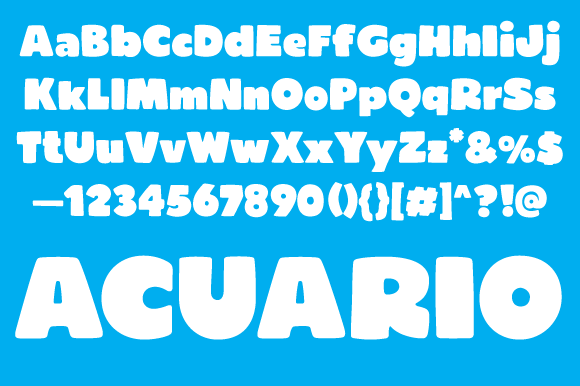
Getting Creative with the Perfect Kids’ Typography
Do you remember the moment when you first saw a beautifully designed kids’ book, and it sparked your imagination? For many of us, it’s those early childhood experiences that inspire us to create our own engaging and playful designs. As designers, we know that typography plays a crucial role in capturing the attention of our young audience. And that’s where the Acuario Font comes in – a strong display font that’s fun and friendly, perfect for any kids-themed project.
The Acuario Font is more than just a pretty face; it’s a valuable tool for designers who want to add a touch of whimsy and personality to their work. With its unique design, it’s sure to stand out in a crowded market, making it an excellent choice for anyone looking to create engaging and memorable designs for kids. Whether you’re designing a children’s book, a website, or a marketing campaign, the Acuario Font is sure to be a hit.
Key Features of Acuario Font
- Font Family: Acuario Font is a sans-serif font family designed for digital use.
- Unique Characteristics: Features a modern and sleek design with rounded edges and a high x-height, making it highly legible in digital environments.
- Language Support: Supports a wide range of languages, including Latin, Cyrillic, and Greek alphabets.
Designer Review: Acuario Font
As a designer, I’ve had the chance to work with a variety of fonts, but the Acuario Font has caught my attention. Let’s dive into its strengths and weaknesses.
- Unique and Creative Design: The Acuario Font has a distinctive style that stands out from the crowd. Its wavy lines and playful feel make it perfect for projects that need a touch of whimsy.
- Legibility: Despite its creative design, the font remains legible, making it suitable for body text and headings.
- Unicode Support: The Acuario Font supports a wide range of Unicode characters, making it a great choice for international projects.
- Consistency: While the font’s design is unique, it can be inconsistent in certain situations, such as at small font sizes or when used in complex layouts.
The Acuario Font is a great choice for designers who want to add a touch of creativity to their projects. While it has its limitations, its unique design and legibility make it a valuable addition to any font library.
Acuario Font is versatile and can be used in a variety of design projects, including:
- Graphic design and branding
- Print design and publishing
Some tips for getting the most out of Acuario Font include:
- Using it in combination with bold and italic styles for emphasis
- Experimenting with different font sizes and line heights
- Use Acuario Font for the title and author’s name to add a touch of oceanic elegance.
- Combine with a stylized wave design and vibrant ocean colors to evoke a sense of movement and depth.
- Consider adding some 3D effects or textures to give the cover a tactile feel.
- Utilize Acuario Font for the wedding details and date to create a sense of formality and elegance.
- Pair with delicate watercolor illustrations or a custom illustration of a sea creature to add a whimsical touch.
- Don’t forget to include some ocean-inspired color schemes and textures to tie the design together.